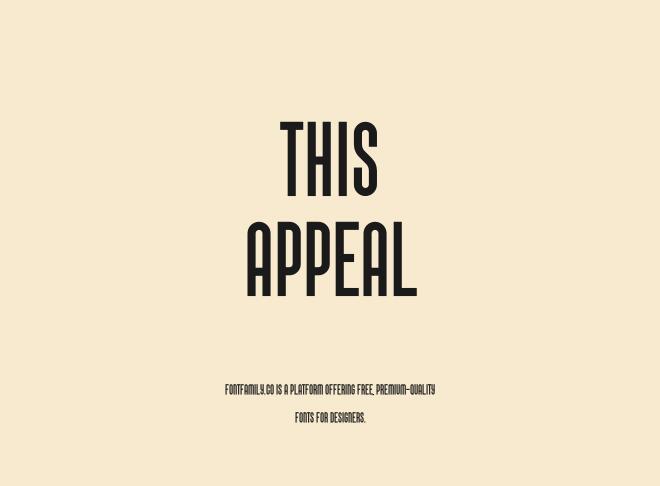
This Appeal Font
Introducing 'This Appeal Font', a unique, modern, and geometric font from Font Foundry Co. Released in 2020, this font has been meticulously designed with a keen focus on simplicity and readability. Its clean lines and geometric structure make it perfect for a wide array of design projects, including logos, headlines, posters, and more. Compared to other fonts, 'This Appeal Font' offers an appealing blend of modern aesthetics and geometric precision, making it a versatile choice for both print and digital designs. If you're a designer looking for a font that is both stylish and functional, 'This Appeal Font' is a great choice. Its modern, geometric style is sure to appeal to a wide audience and elevate your designs to the next level.